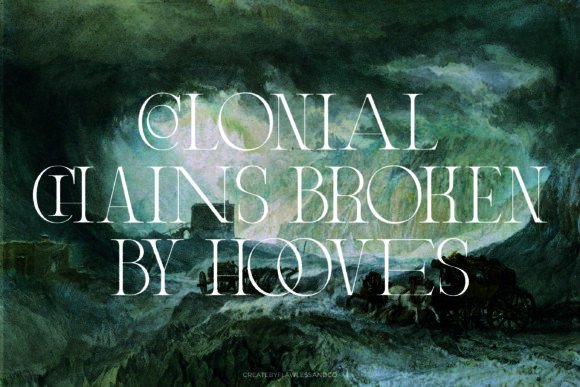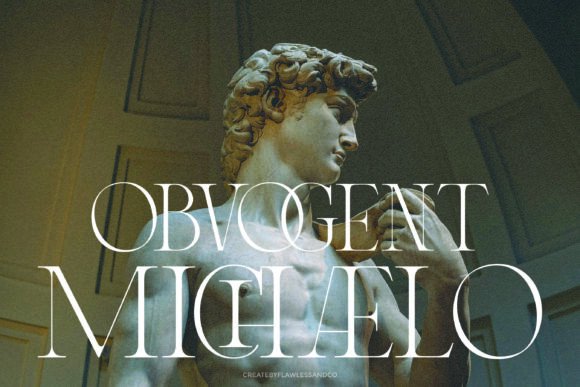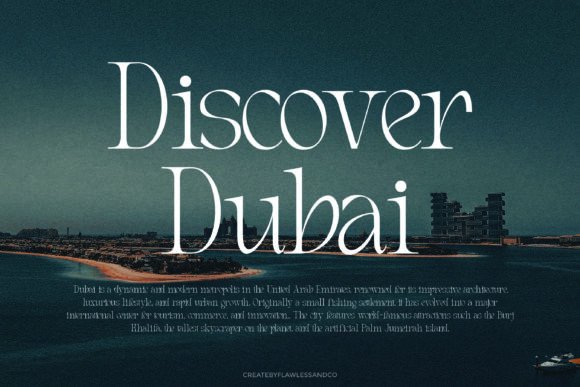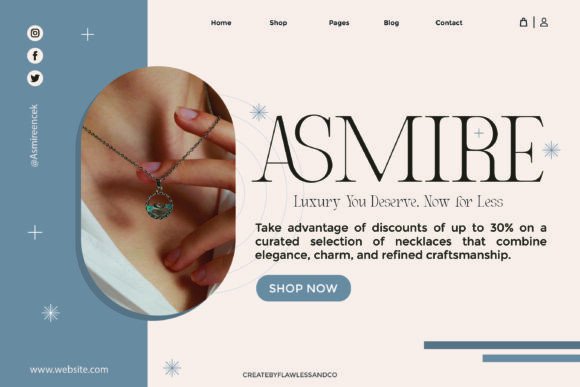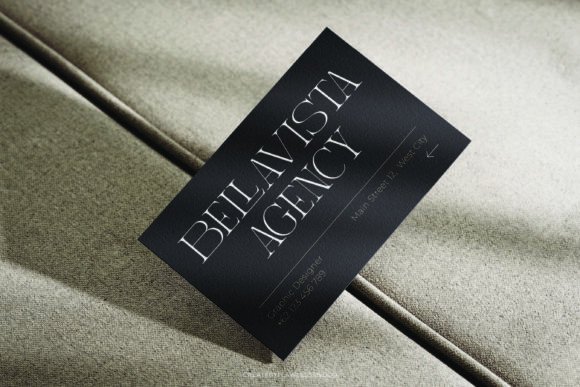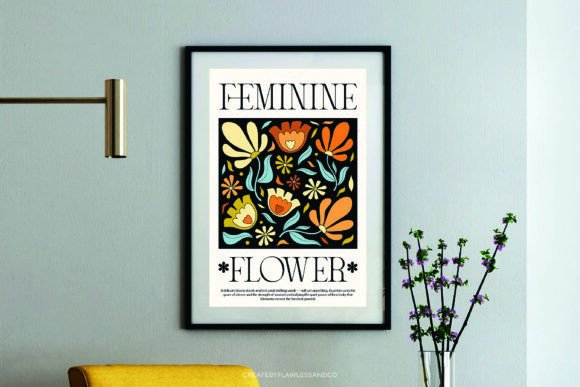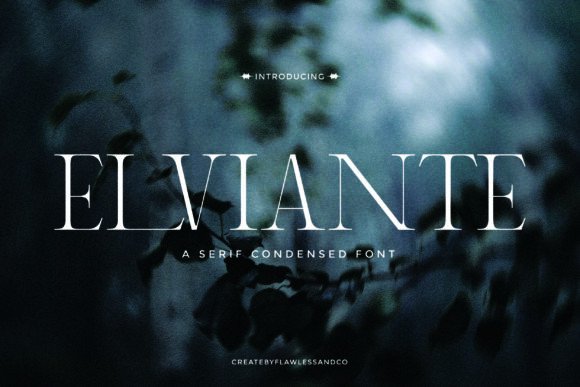
Introducing Elviante Font: Elevate Your Design with Elegance and Precision
In the world of typography, a well-crafted font can make all the difference in elevating your design to new heights. Elviante Font is a refined condensed serif typeface that embodies elegance, precision, and confidence, making it the perfect addition to your design arsenal. With its high-contrast strokes, tall letterforms, and meticulously balanced spacing, Elviante delivers a sophisticated look that instantly commands attention without overpowering your design.
The Perfect Blend of Tradition and Modernity
Elviante seamlessly blends timeless serif tradition with a sleek modern structure, making it an ideal choice for designers seeking a font that exudes both classic sophistication and contemporary flair. This harmonious balance of old and new allows Elviante to effortlessly adapt to various design applications, from bold headlines and upscale branding to editorial layouts, luxury packaging, and fashion-forward visuals.
Key Features of Elviante Font
- High-contrast strokes: Elviante’s high-contrast strokes create a sense of drama and elegance, adding depth and visual interest to your design.
- Tall letterforms: The font’s tall letterforms contribute to its refined and sophisticated appearance, making it perfect for headlines, titles, and other display text.
- Meticulously balanced spacing: Elviante’s carefully balanced spacing ensures that each letterform interacts harmoniously with its neighbors, creating a smooth and visually appealing reading experience.
Ideal Applications for Elviante Font
Elviante’s versatility makes it suitable for a wide range of design applications, including:
- Bold headlines: Elviante’s commanding presence makes it perfect for grabbing attention and creating a lasting impression.
- Upscale branding: The font’s sophisticated appearance and elegant feel make it an excellent choice for luxury brands seeking to establish a high-end image.
- Editorial layouts: Elviante’s refined and classic look makes it well-suited for editorial designs, such as magazines, newspapers, and books.
- Luxury packaging: The font’s high-end feel and sophisticated appearance make it perfect for luxury packaging designs that require a touch of elegance.
- Fashion-forward visuals: Elviante’s sleek and modern structure makes it an excellent choice for fashion brands seeking to create visually striking designs.
Adding Strength and Allure to Your Project
Whether you’re building a statement logo or crafting an elegant publication, Elviante Font brings both strength and allure to your project. Its unique blend of classic sophistication and modern flair allows it to adapt seamlessly to various design contexts, ensuring that your design stands out from the crowd.
Why Choose Elviante Font?
With Elviante Font, you can:
- Elevate your design: Elviante’s sophisticated appearance and elegant feel instantly elevate your design, making it perfect for designers seeking to create high-end visuals.
- Create a lasting impression: The font’s commanding presence and attention-grabbing appearance ensure that your design leaves a lasting impression on your audience.
- Enhance your brand image: Elviante’s upscale and refined appearance makes it an excellent choice for brands seeking to establish a high-end image.
In conclusion, Elviante Font is a refined condensed serif typeface that offers a perfect blend of elegance, precision, and confidence. Its versatility, sophisticated appearance, and elegant feel make it an excellent choice for designers seeking to elevate their design and create a lasting impression. Whether you’re working on a bold headline, upscale branding, editorial layout, luxury packaging, or fashion-forward visual, Elviante Font is the perfect addition to your design arsenal.